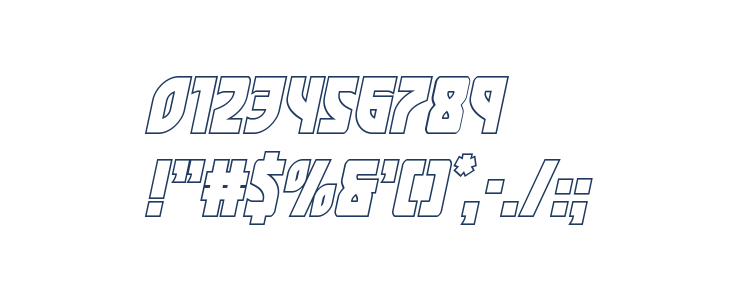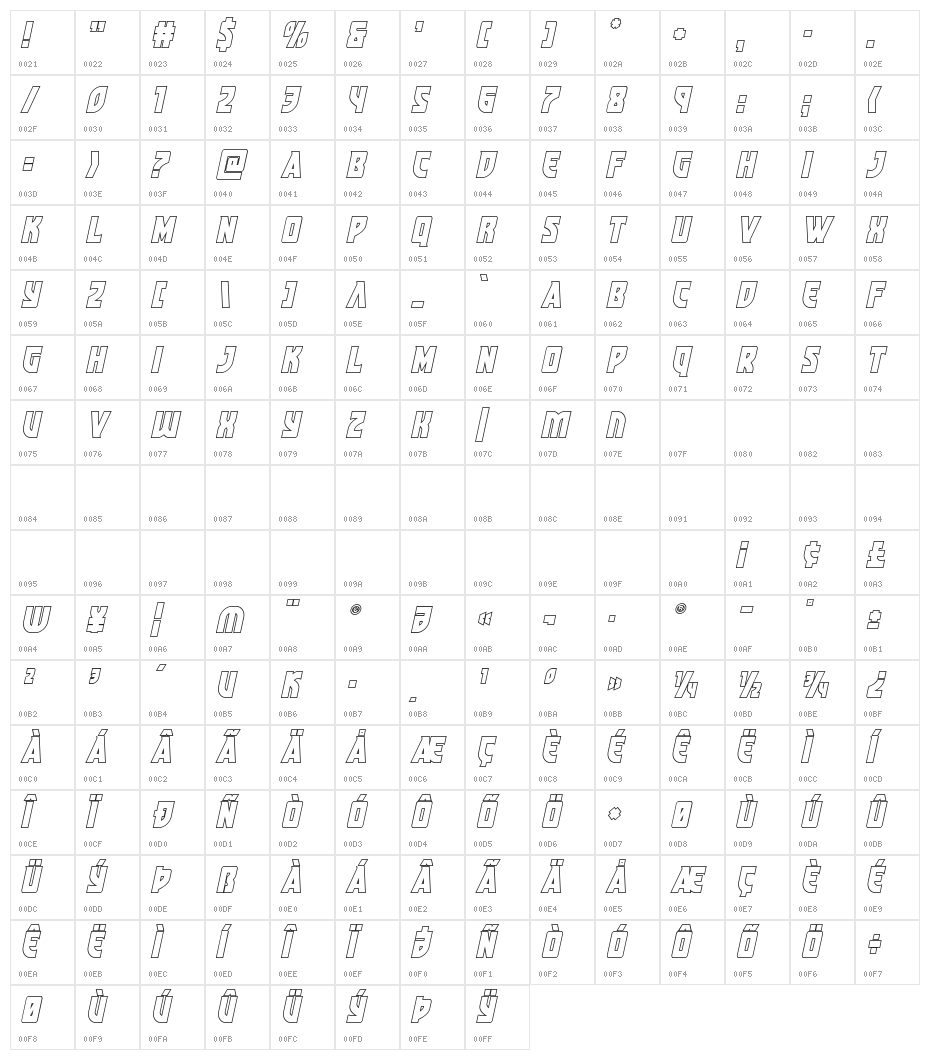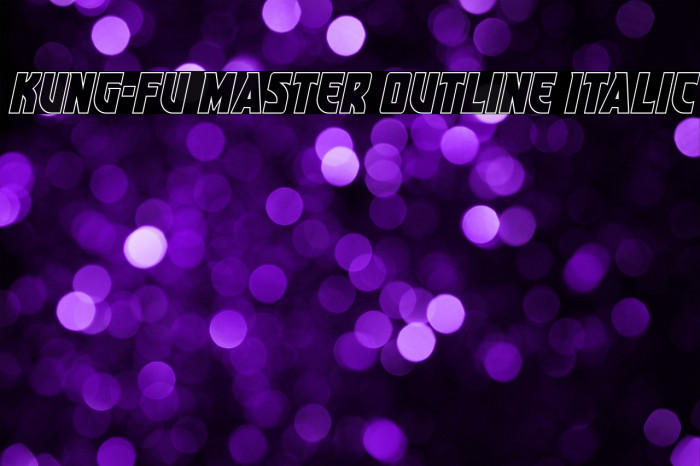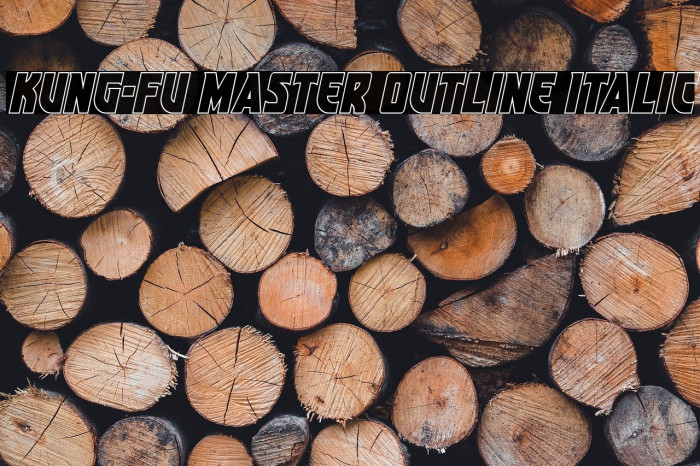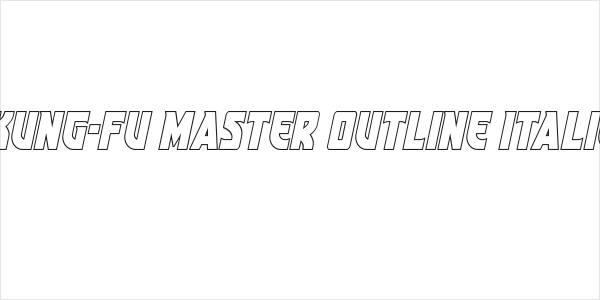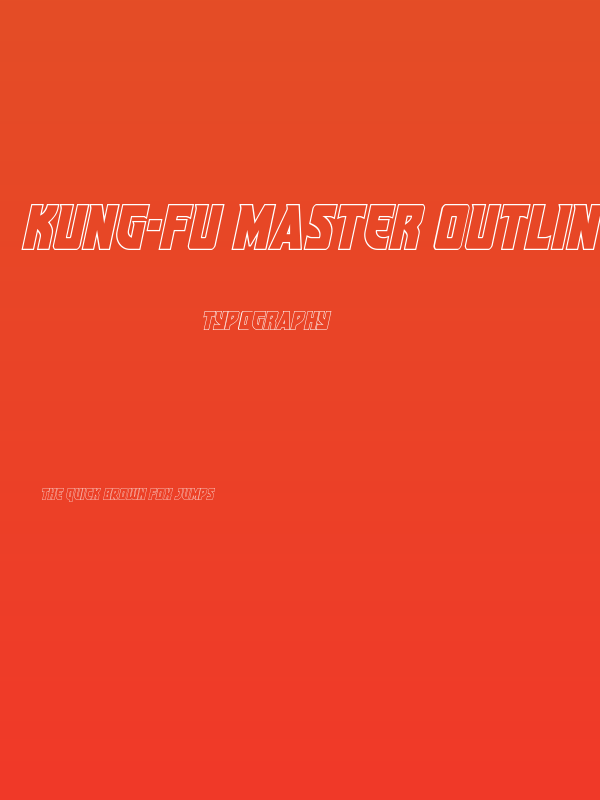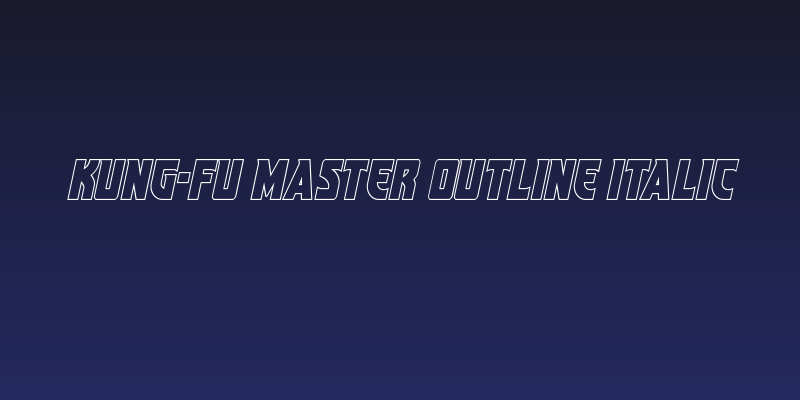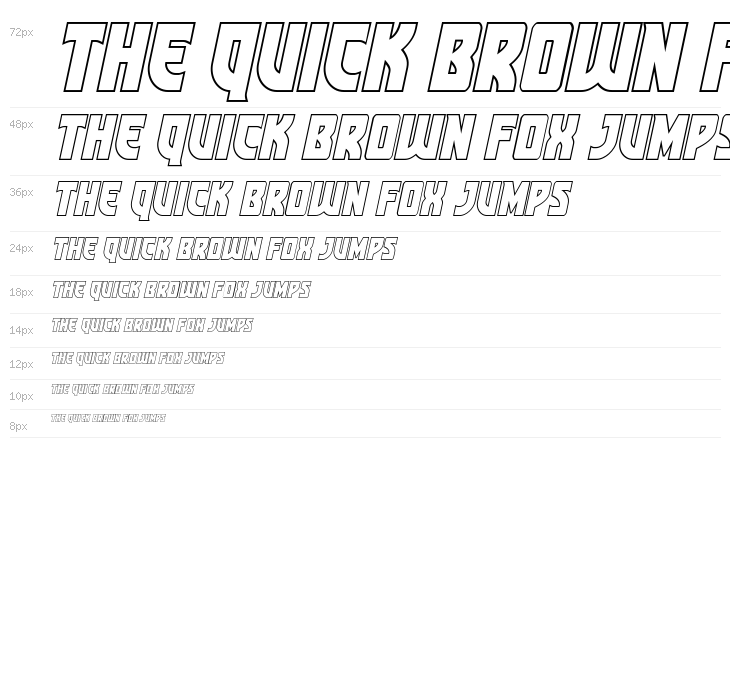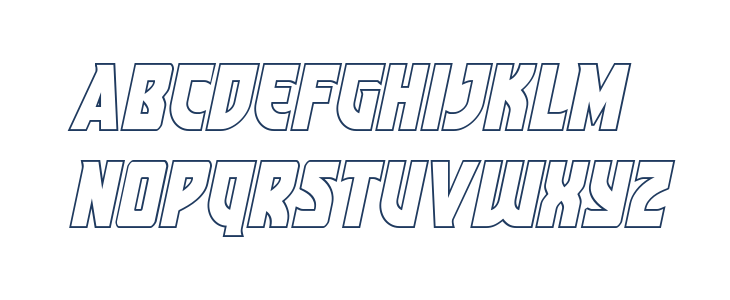
Kung-Fu Master Outline Italic Font
Kung-Fu Master Outline Italic Description
This font features a bold, dynamic style with an outline effect that gives it a striking appearance. The italicized letters are slanted, adding a sense of motion and energy. The characters are designed with sharp angles and a geometric structure, making them stand out. The uppercase and lowercase letters maintain a consistent style, with the uppercase being slightly larger and more pronounced. Numbers and special characters follow the same design principles, ensuring uniformity across all glyphs. The font's outline style makes it suitable for eye-catching designs, where the text needs to be prominent and impactful.